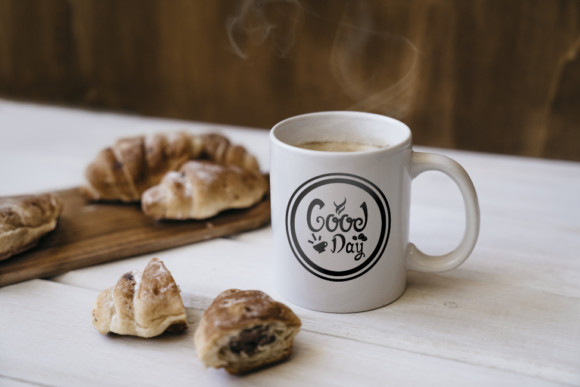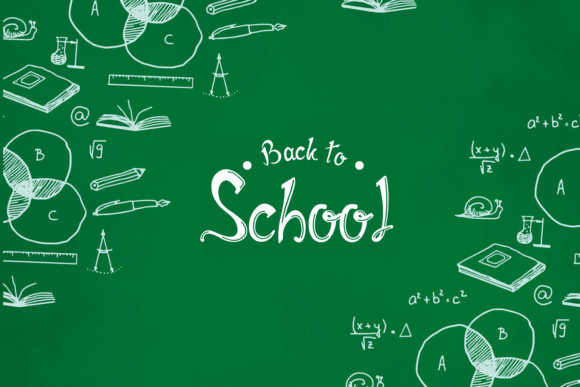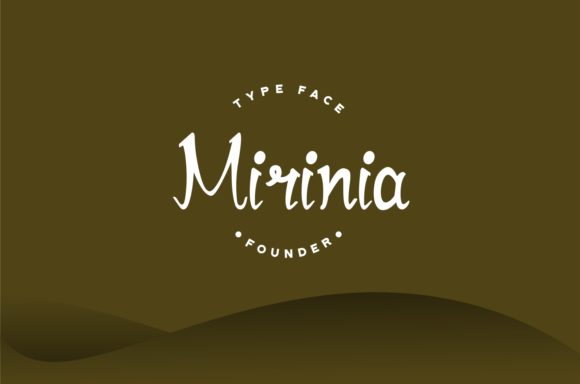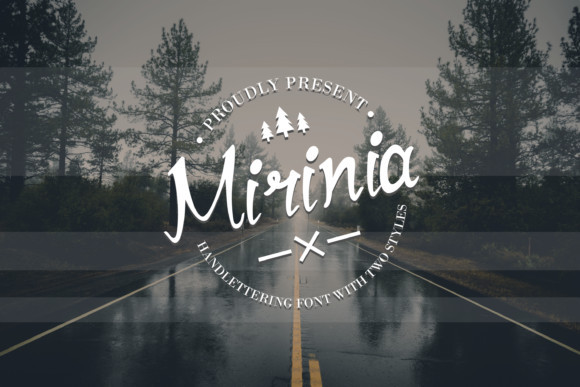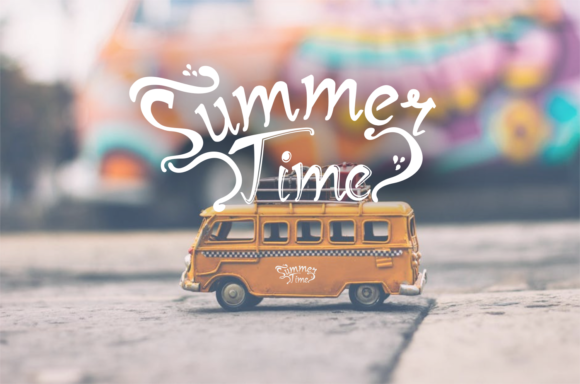
Mirinia Script Font
Mirinia Font
Mirinia is a beautiful and authentic font with a bold charm. Get inspired and use it for any design project that needs a modern, yet personal feel.